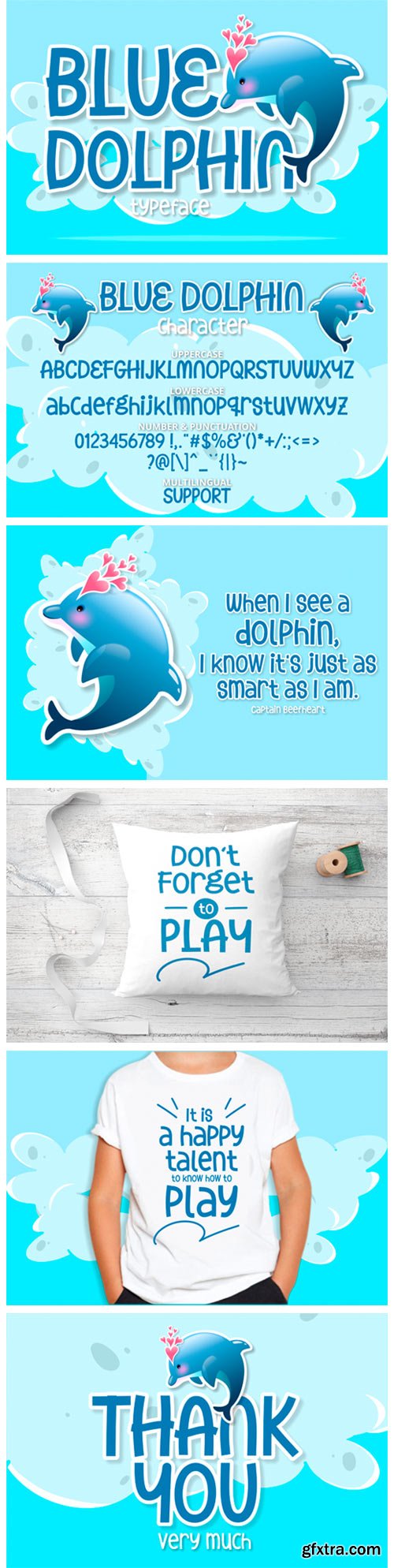
Blue Dolphin Font
Blue Dolphin is a playful display font that has a cheerful, fun and memorable look. This enchanting font will make any creative ideas such as brands, posts, wedding designs, invitations, logos, labels and signatures to stand out!